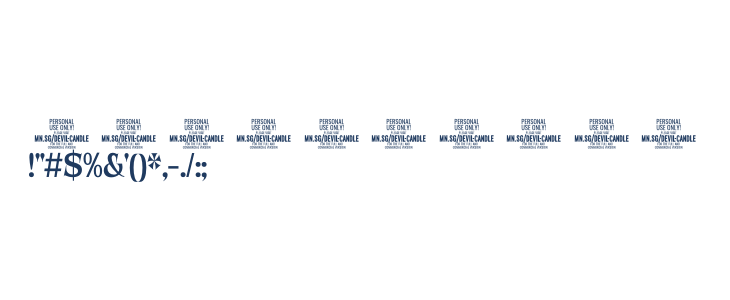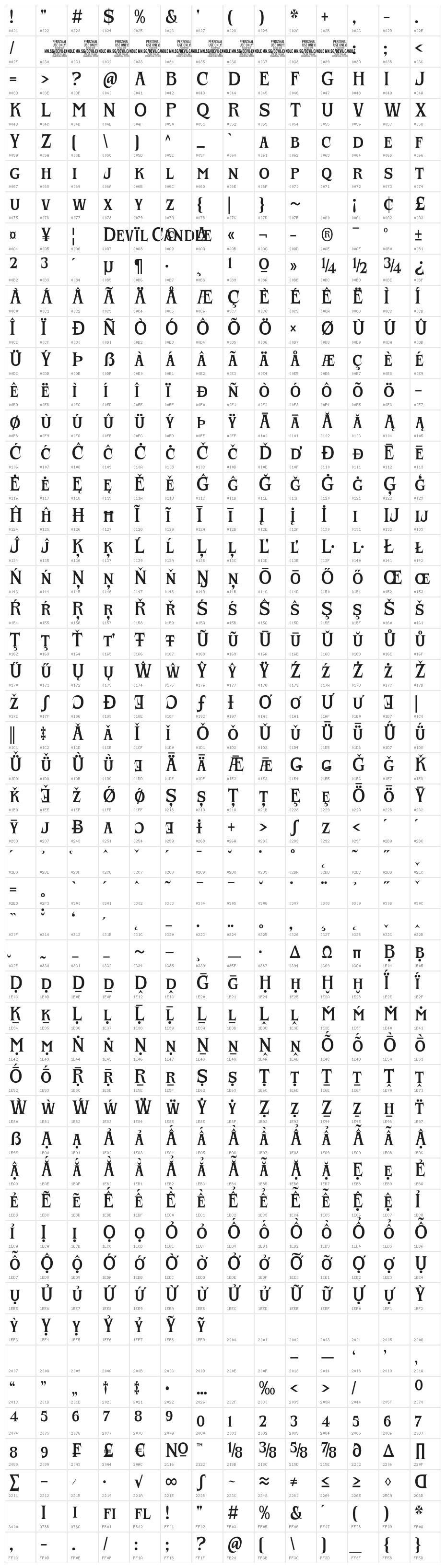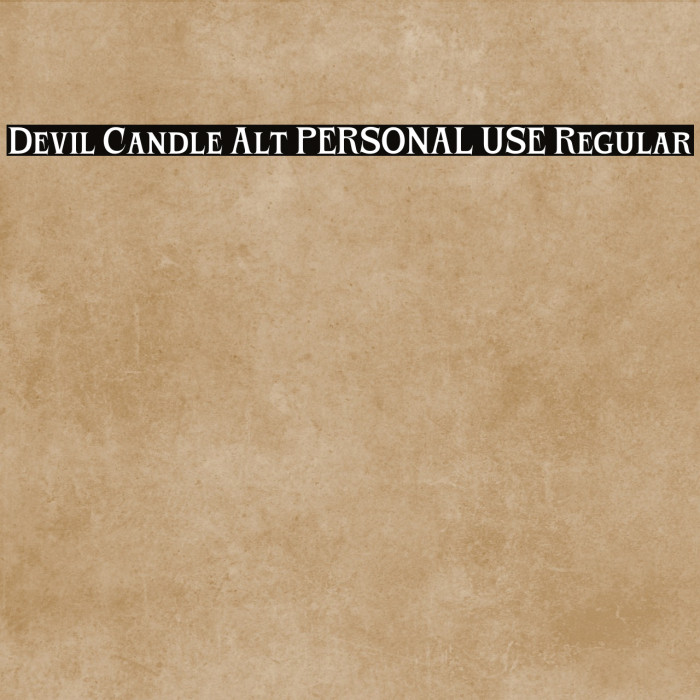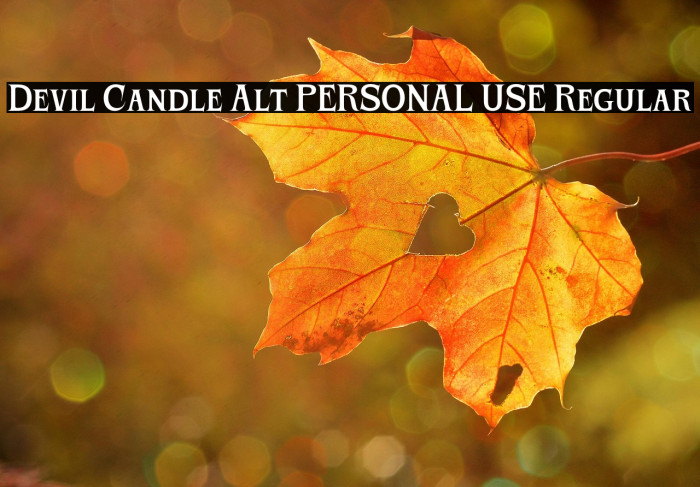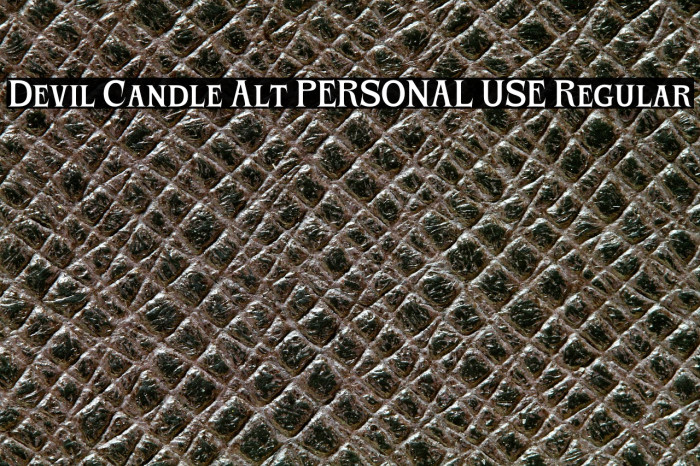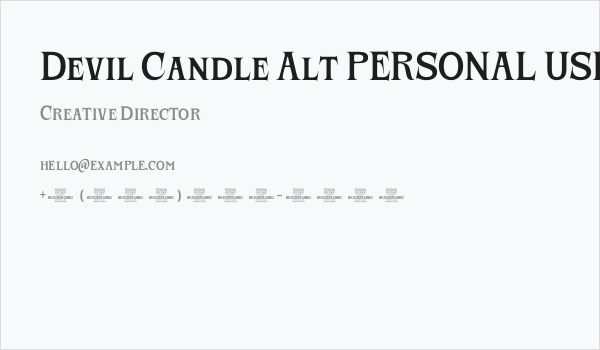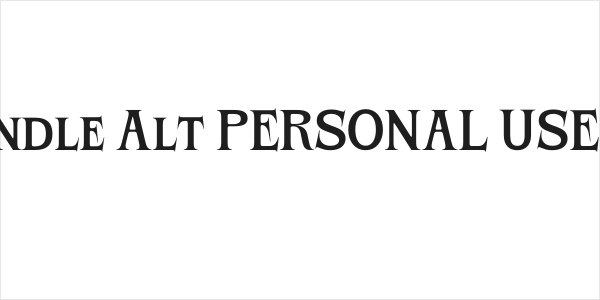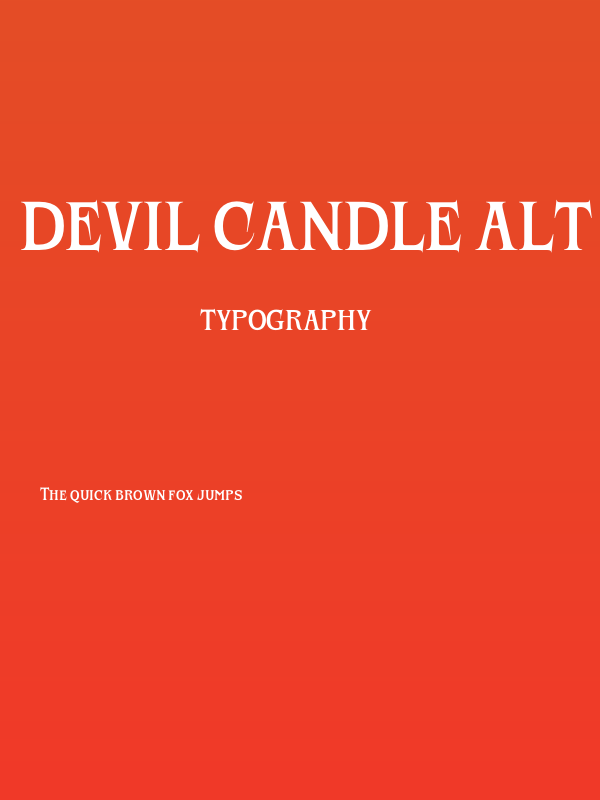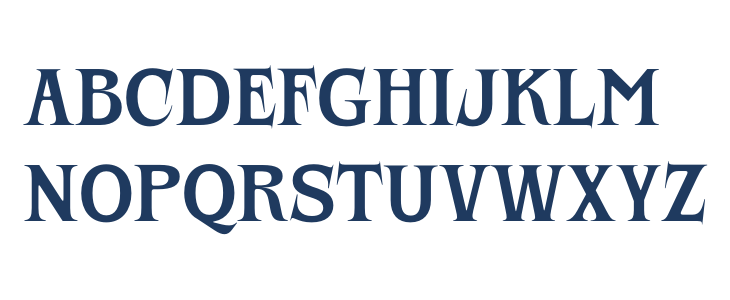
Devil Candle Alt PERSONAL USE Regular Font
Devil Candle Alt PERSONAL USE Regular Description
This font features a bold and dramatic style with sharp, pointed serifs that give it a gothic and slightly menacing appearance. The uppercase letters are particularly striking, with their elongated and angular forms. The lowercase letters maintain the same sharpness, creating a cohesive look across the typeface. The numerals and special characters are designed to match the overall aesthetic, with consistent stroke thickness and angular details. This font's unique style makes it stand out, offering a distinctive look for projects that require a bold and eye-catching typeface.
| Overall Style | Gothic, Decorative |
| Use Case | Headlines, Posters, Branding |
| Proposed Projects | Ideal for horror-themed posters, Halloween invitations, gothic book covers, and edgy branding projects. |